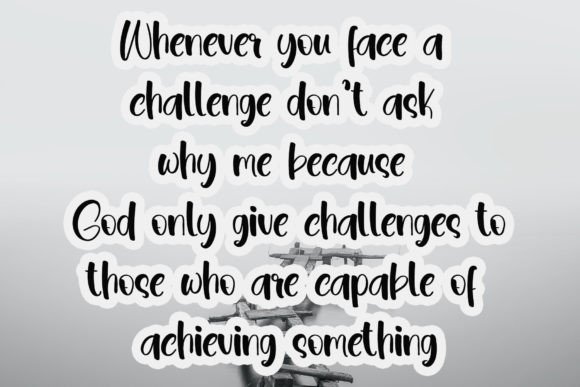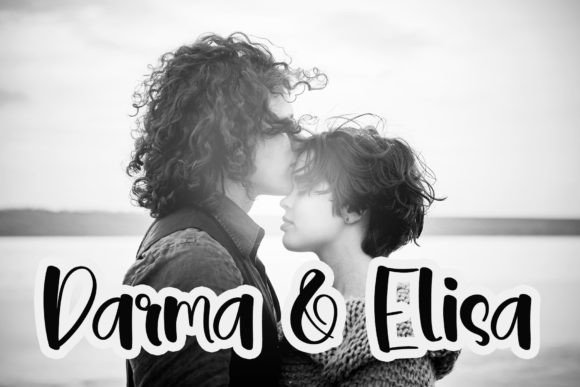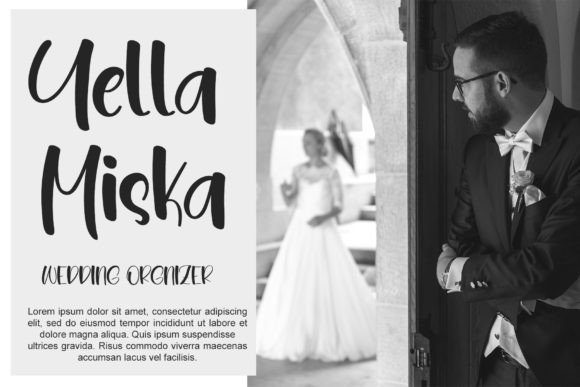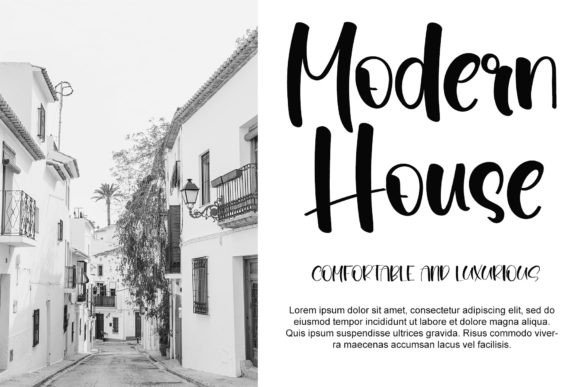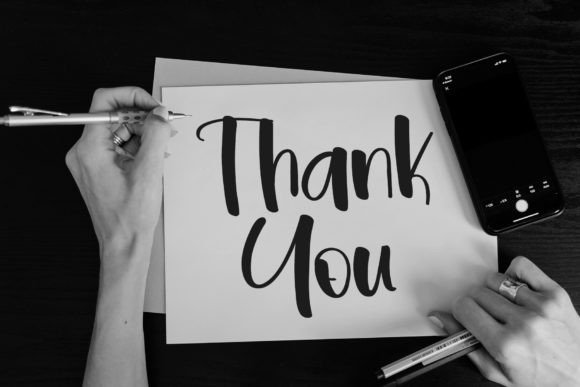
Introduction to Retro Wedding Font
Retro Wedding is an elegant and flowing handwritten font.
It features varied baselines, smooth lines, gorgeous glyphs, and stunning alternatives It maintains a classy calligraphic influence while feeling contemporary and fresh.
Key Features of Retro Wedding Font
Why Choose Retro Wedding Font?
Retro Wedding Font offers exceptional quality and versatility, making it a valuable addition to your design toolkit. Whether you’re creating for personal projects or commercial use, Retro Wedding Font delivers professional results.